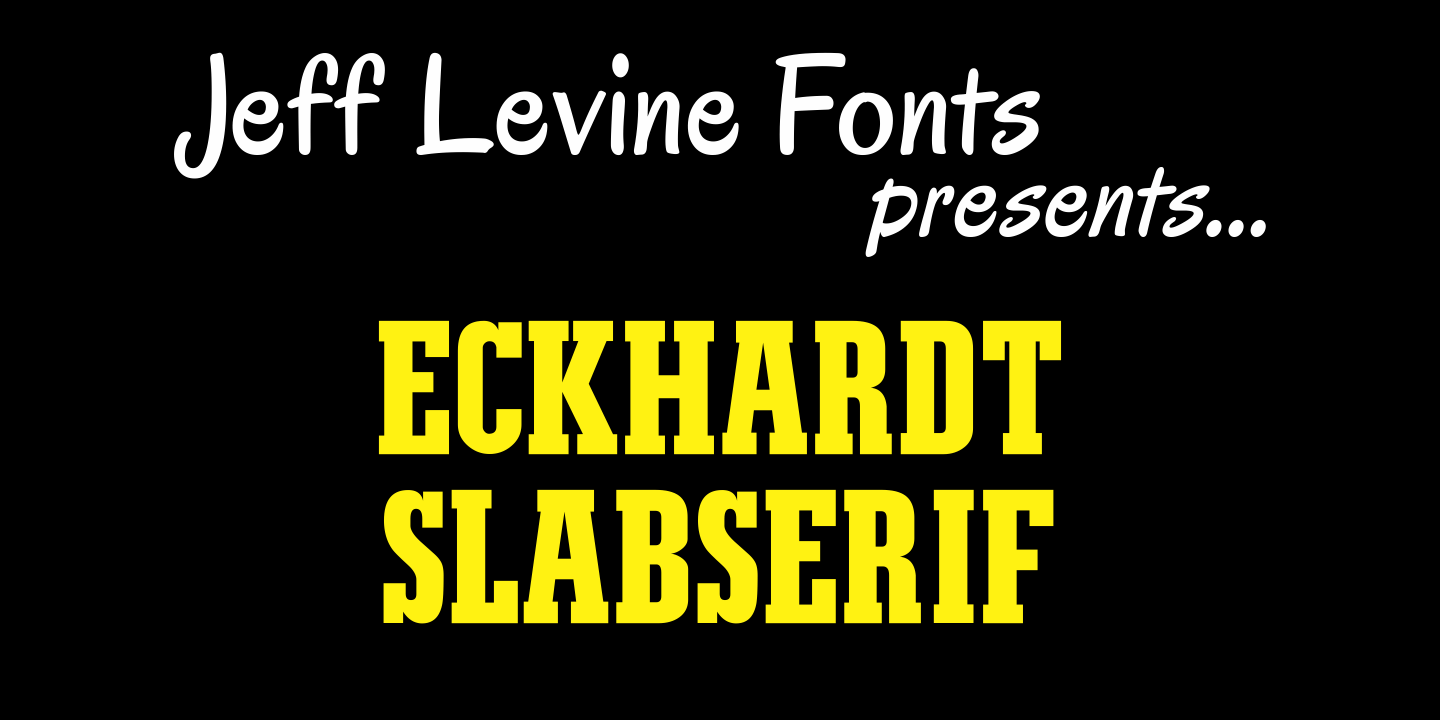
Eckhardt Slabserif
Eckhardt Slabserif JNL is a bold, condensed slab serif font that's perfect for attention-getting headlines, signs, banners, price cards or any printed project where a strong type face is needed.
Its name (as others in a series of sign shop-oriented fonts) is Jeff Levine's way of honoring his friend Al Eckhardt, who ran Allied Signs in Miami until his passing.
Eckhardt Slabserif JNL Regular by Jeff Levine Fonts